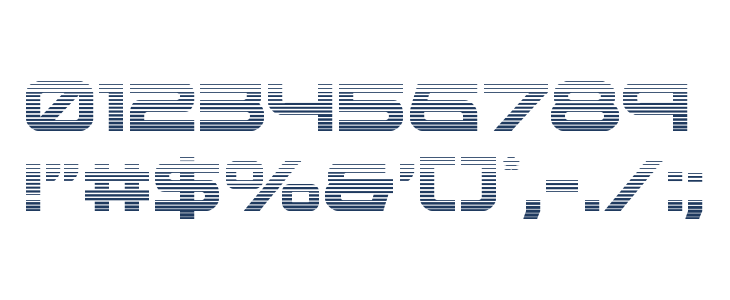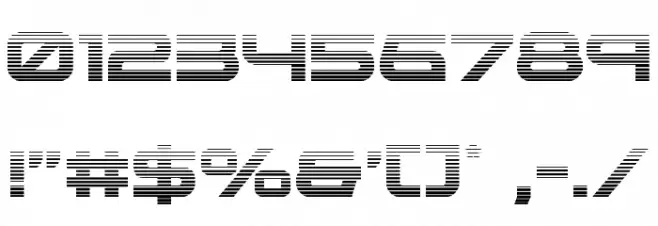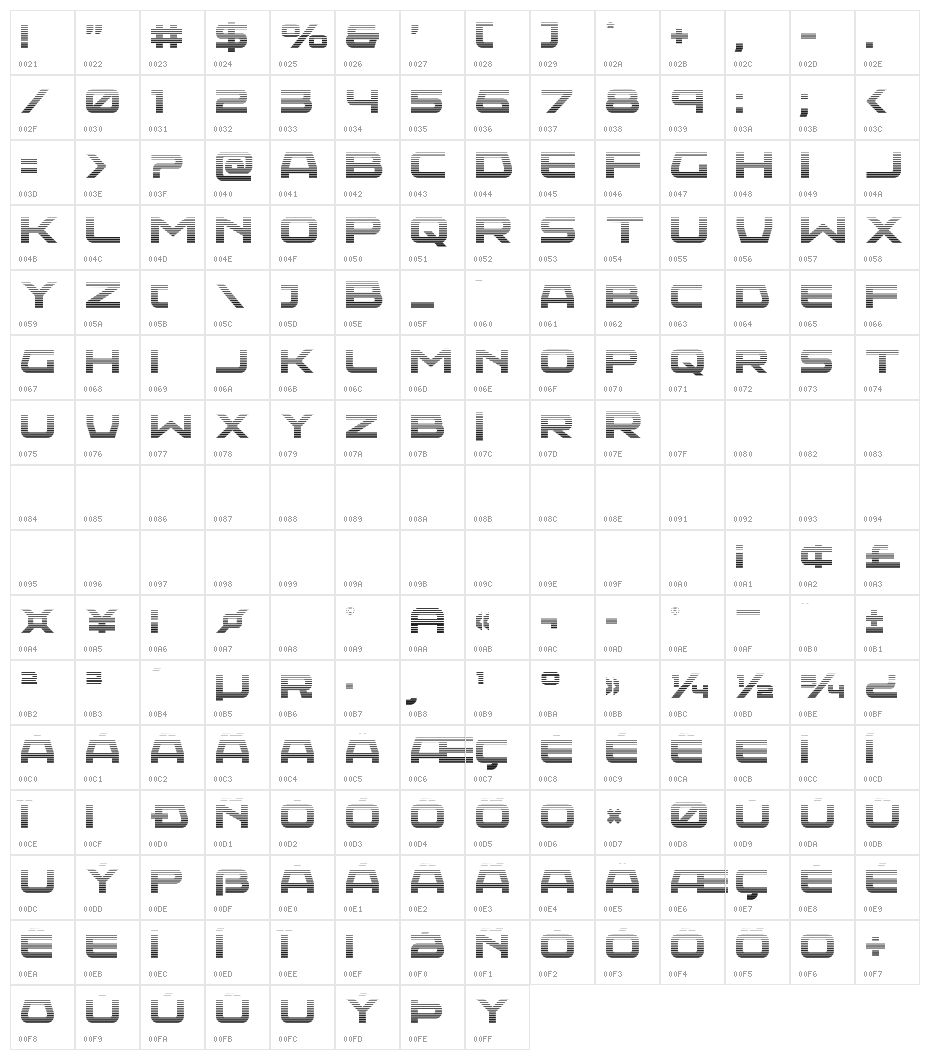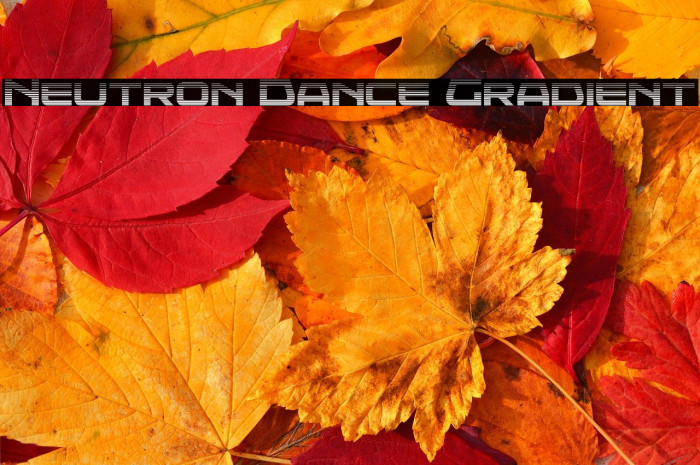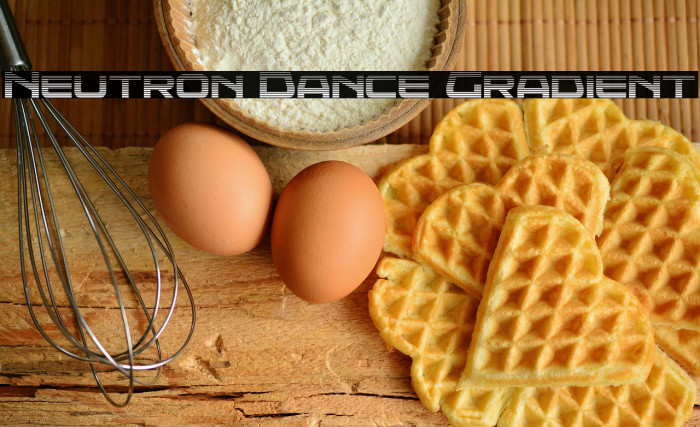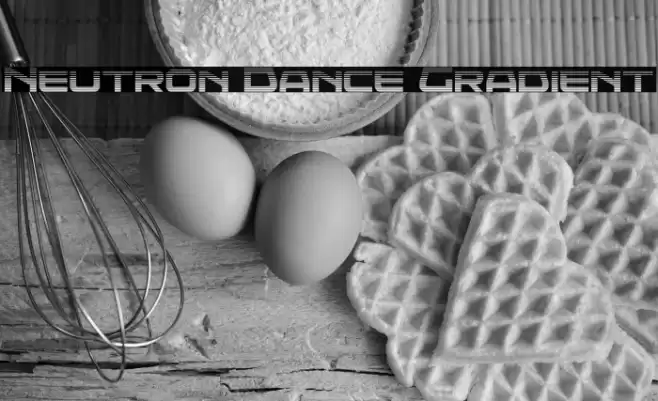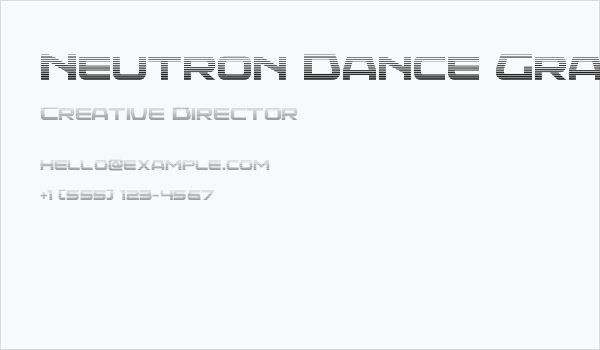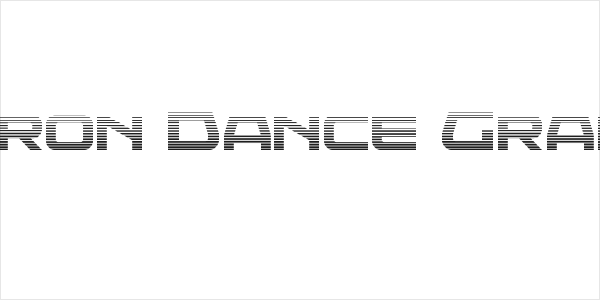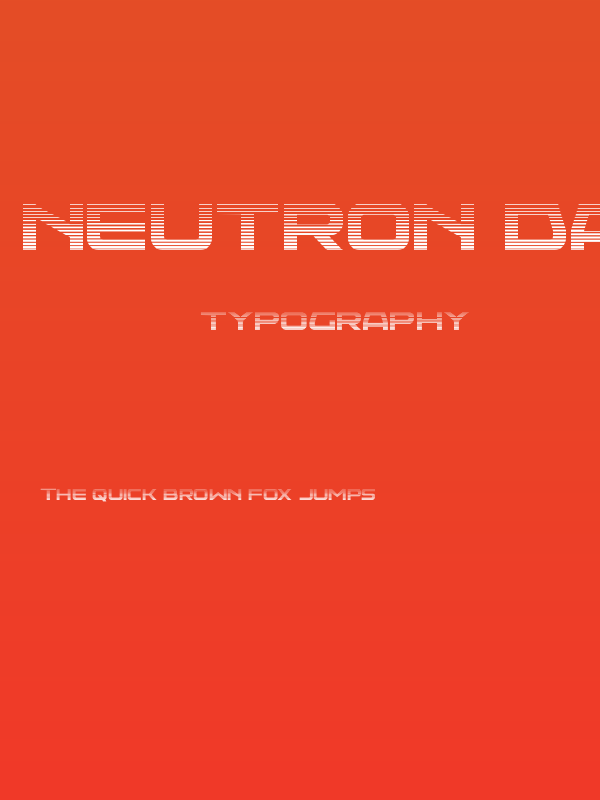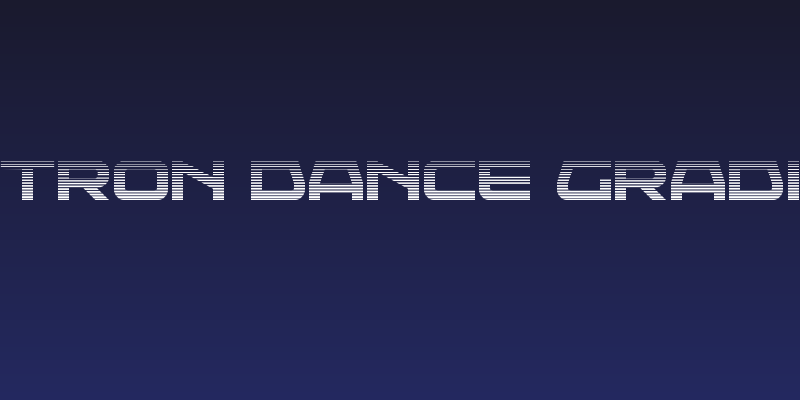
Neutron Dance Gradient Font
Neutron Dance Gradient Description
This font features a futuristic and dynamic design characterized by its horizontal line pattern that creates a gradient effect across each character. The uppercase and lowercase letters, as well as numbers and special characters, maintain a consistent style with sharp, angular edges and a geometric structure. The unique line detailing gives the font a sense of movement and energy, making it stand out in any design. The spacing between characters is balanced, allowing for readability while maintaining its distinctive style.
| Proposed Projects | Ideal for sci-fi themed projects, tech branding, video game titles, and modern digital interfaces. |